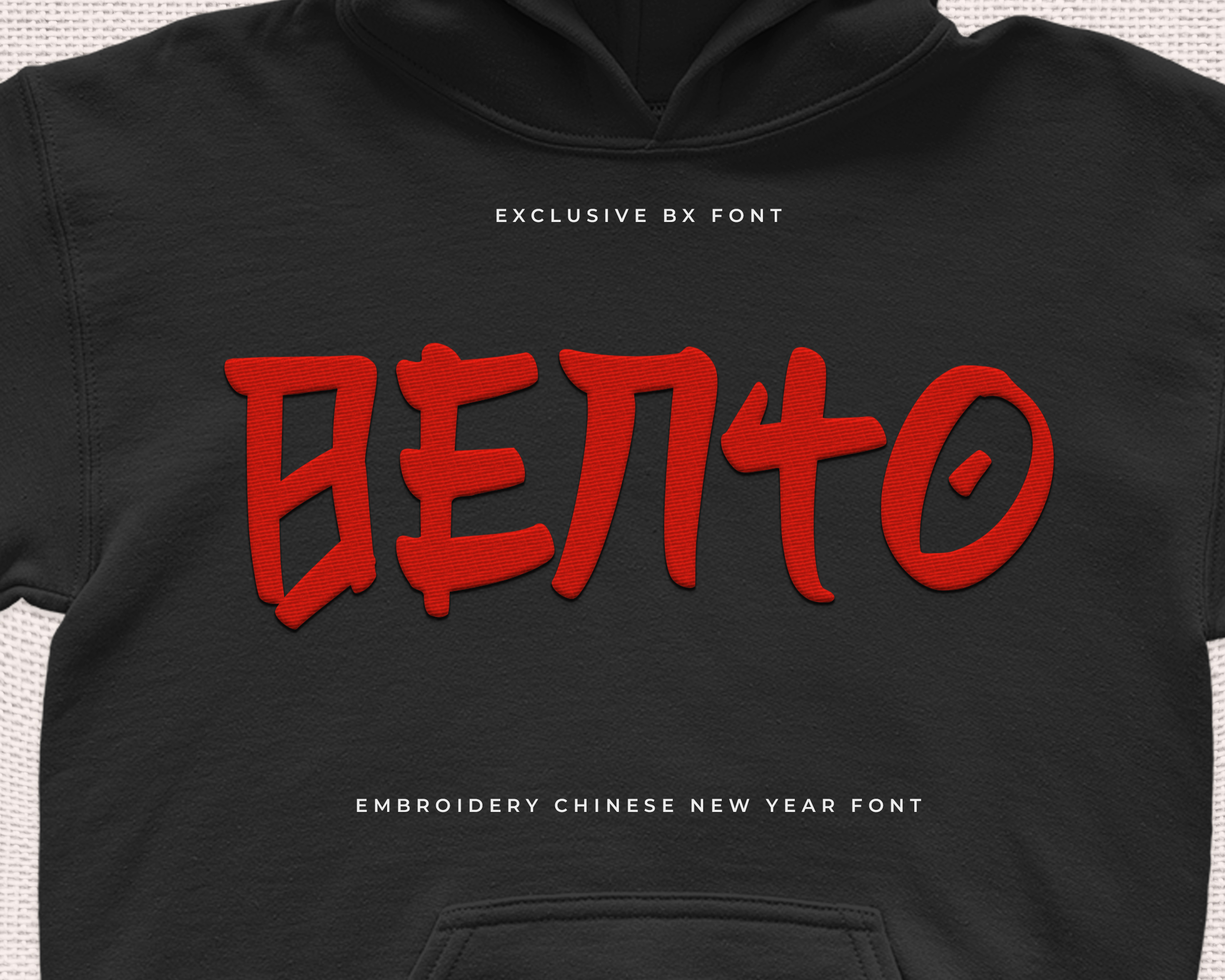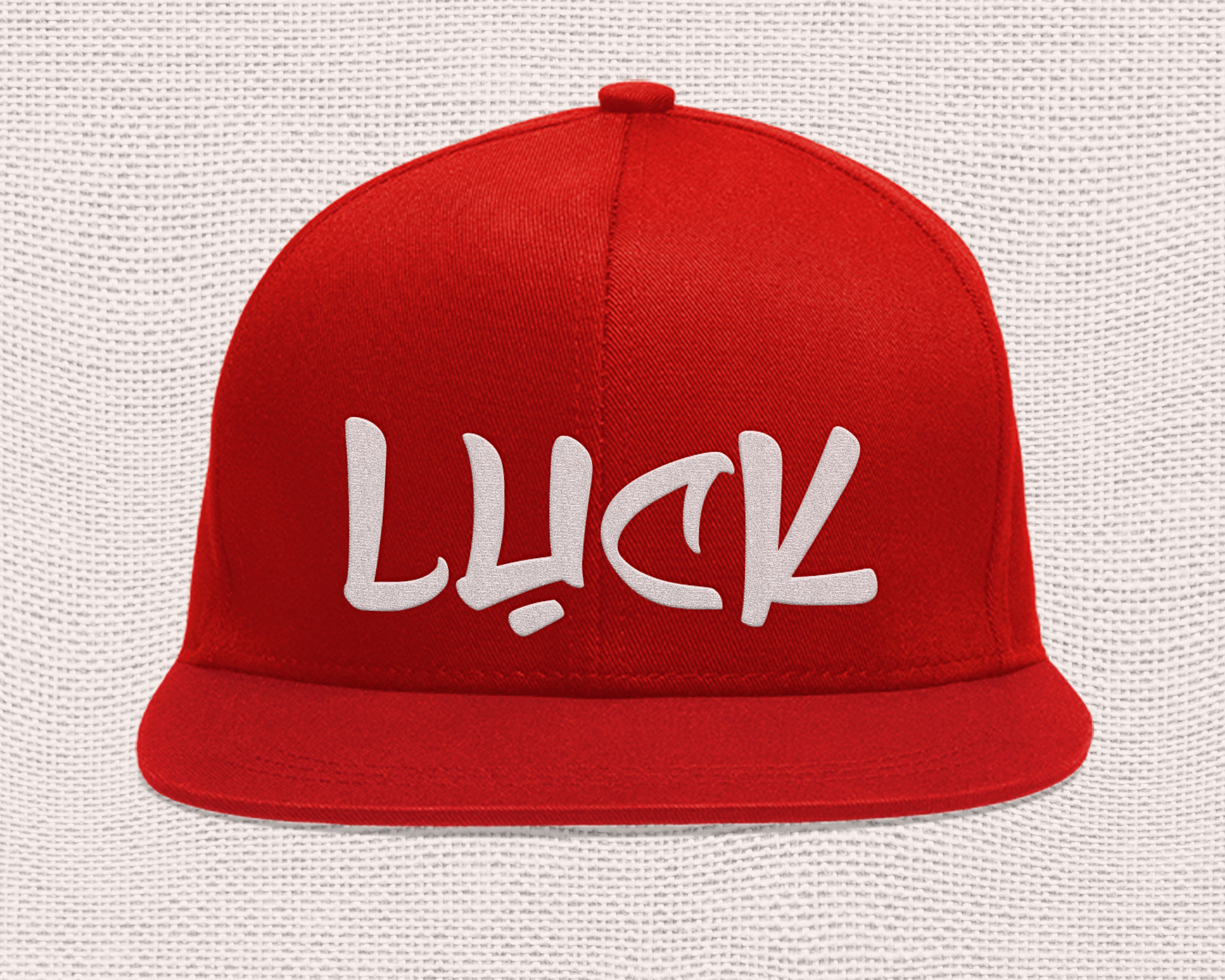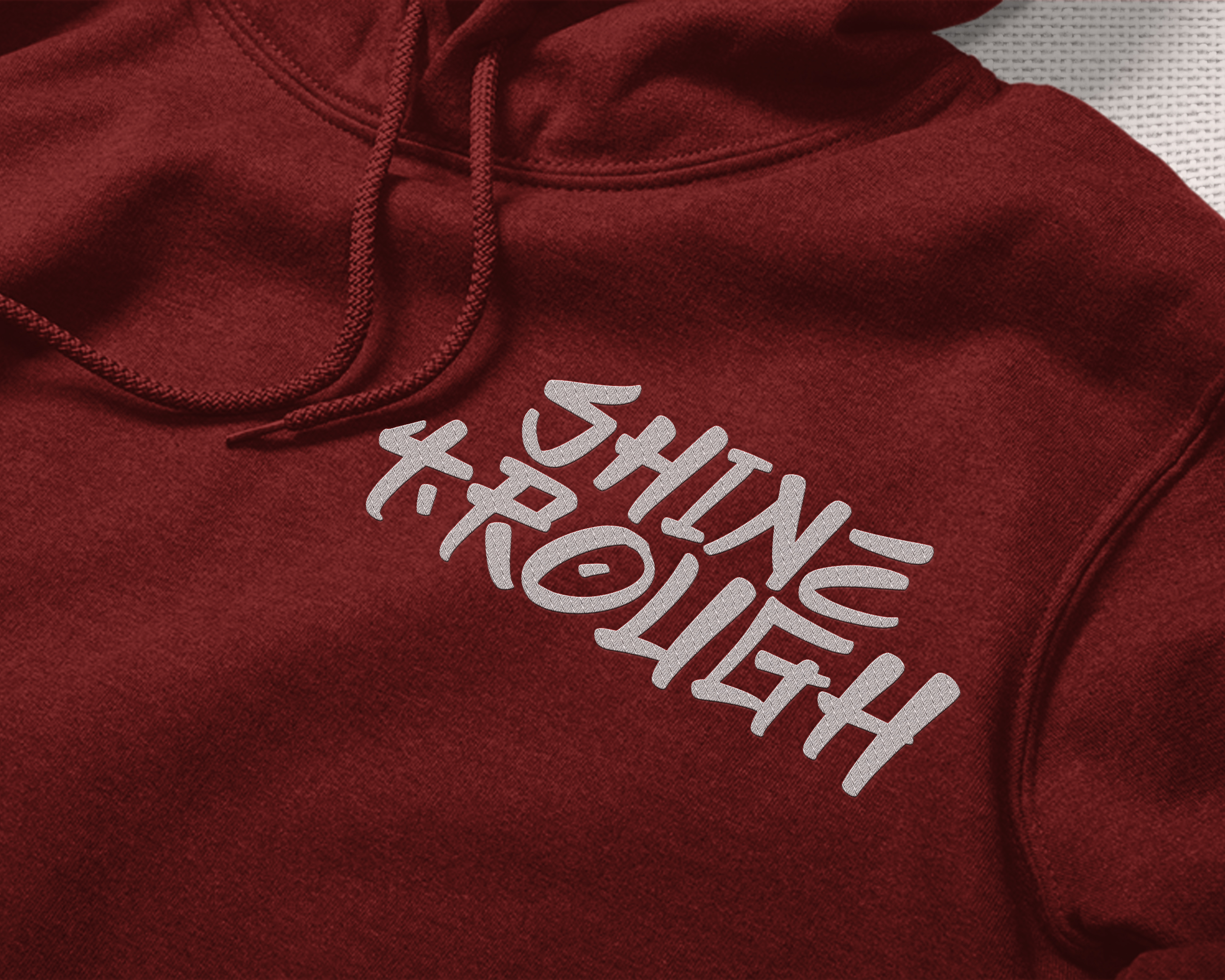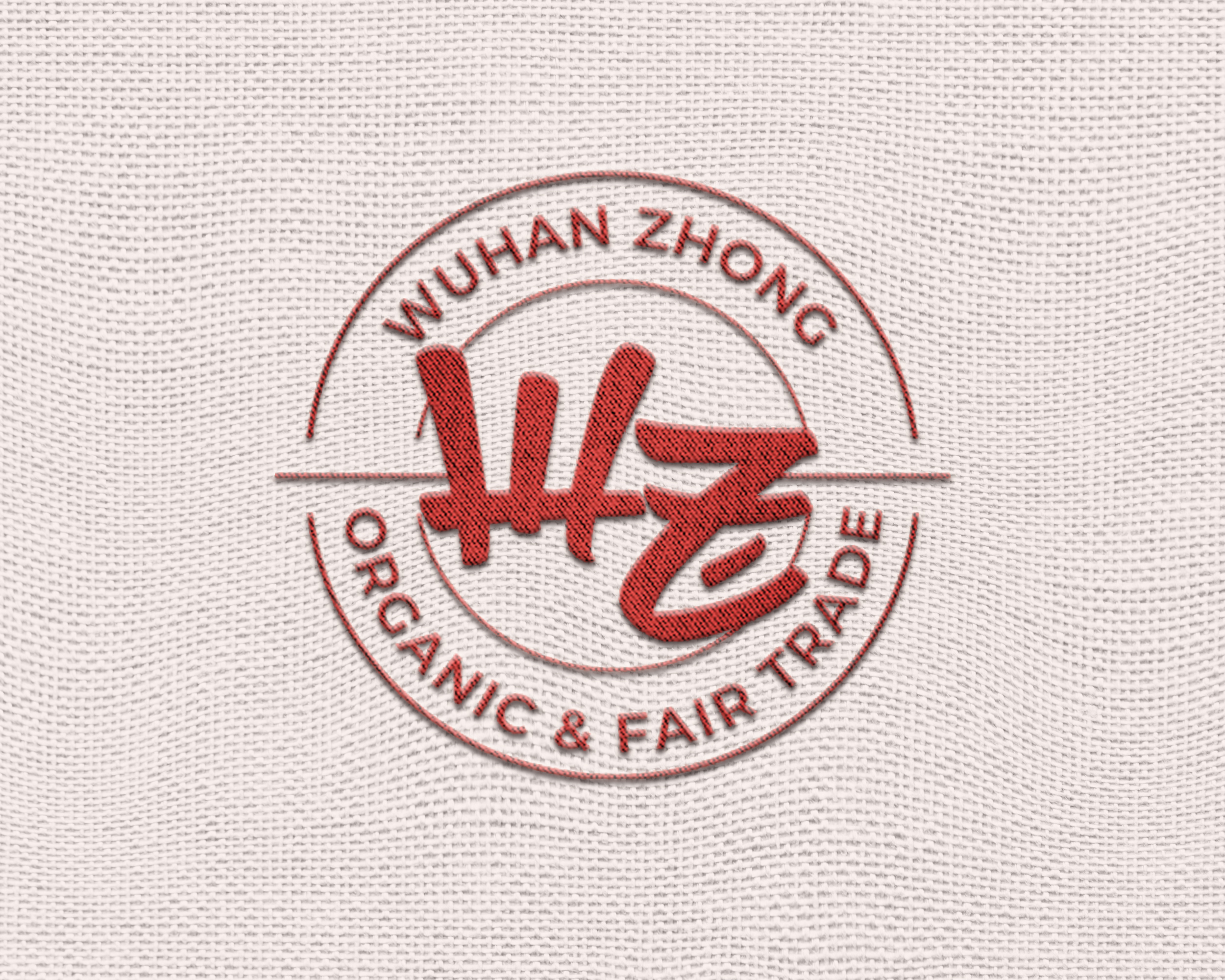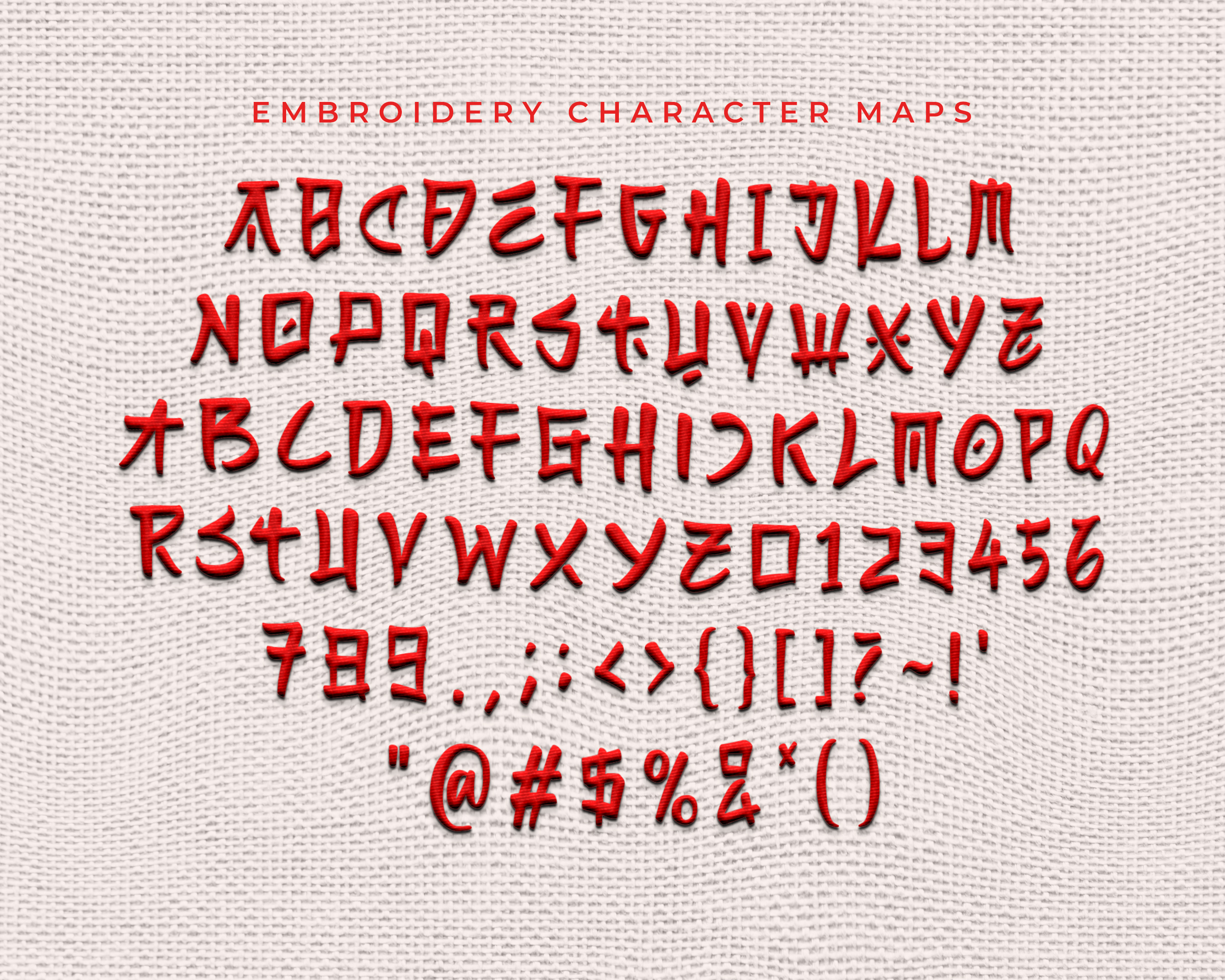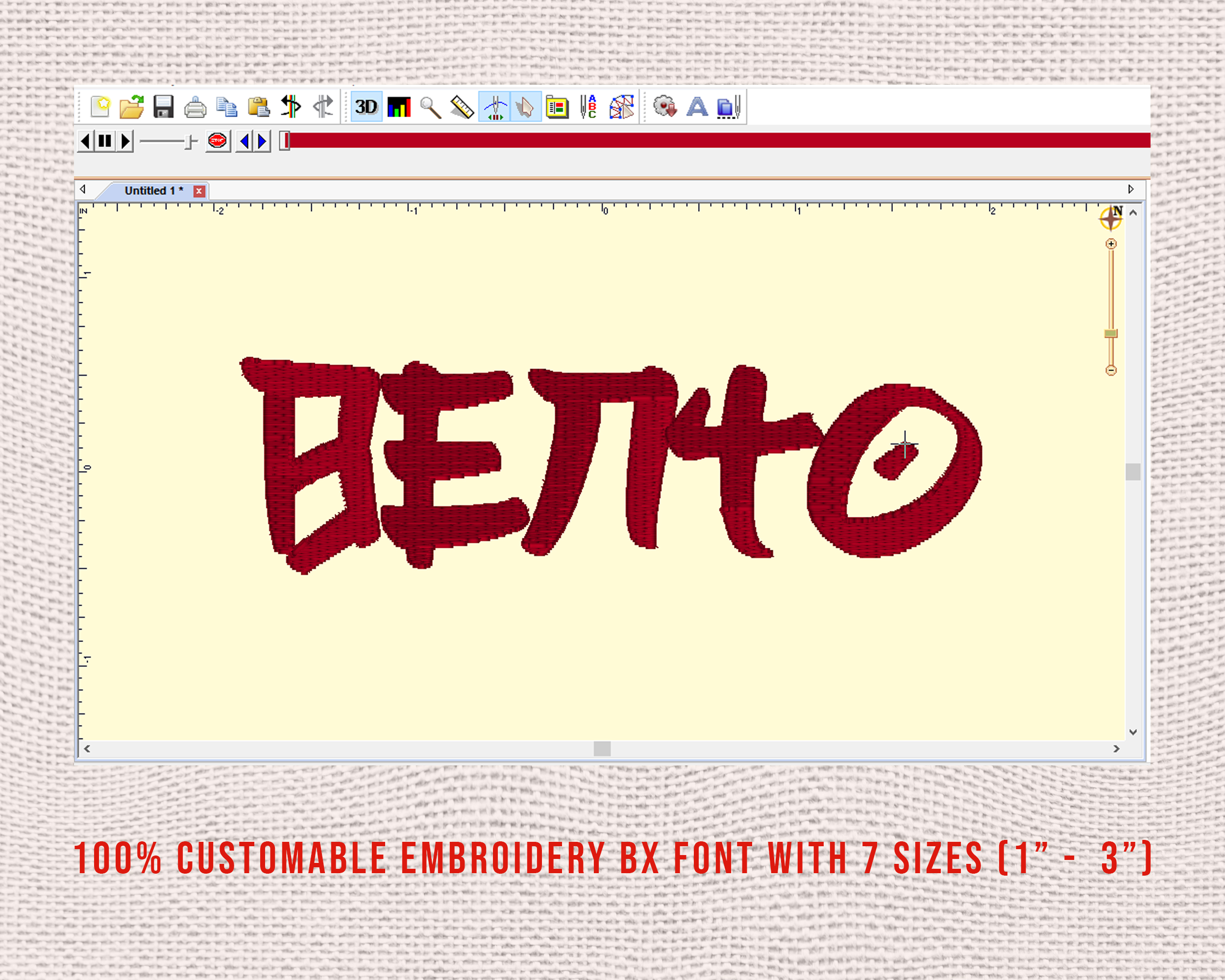
Talking about embroidered fonts will be very fun. Their appearance looks very warm and smooth making anyone who sees it will be amazed. This time, we present a new type of Embroidery font, called Bento Embroidery Font. We created this font for digital and print use. You can also choose different file sizes and kinds to use.
Bento Embroidery Font is perfect and has the same line width. This characteristic makes Bento Embroidery Font display the impression of being modern and unique when viewed carefully and combined with appropriate objects.